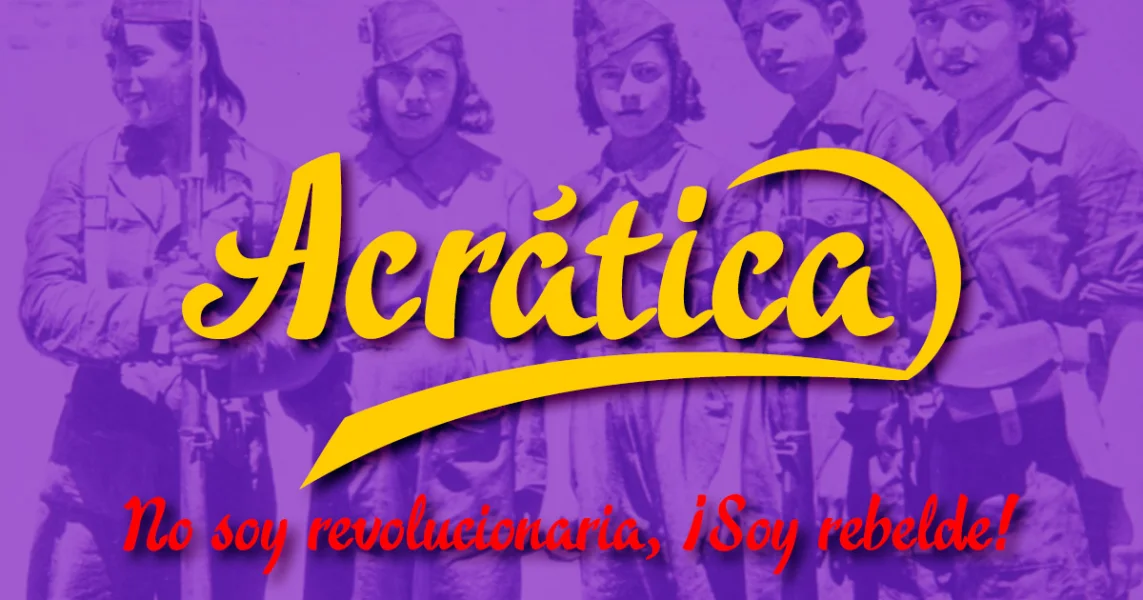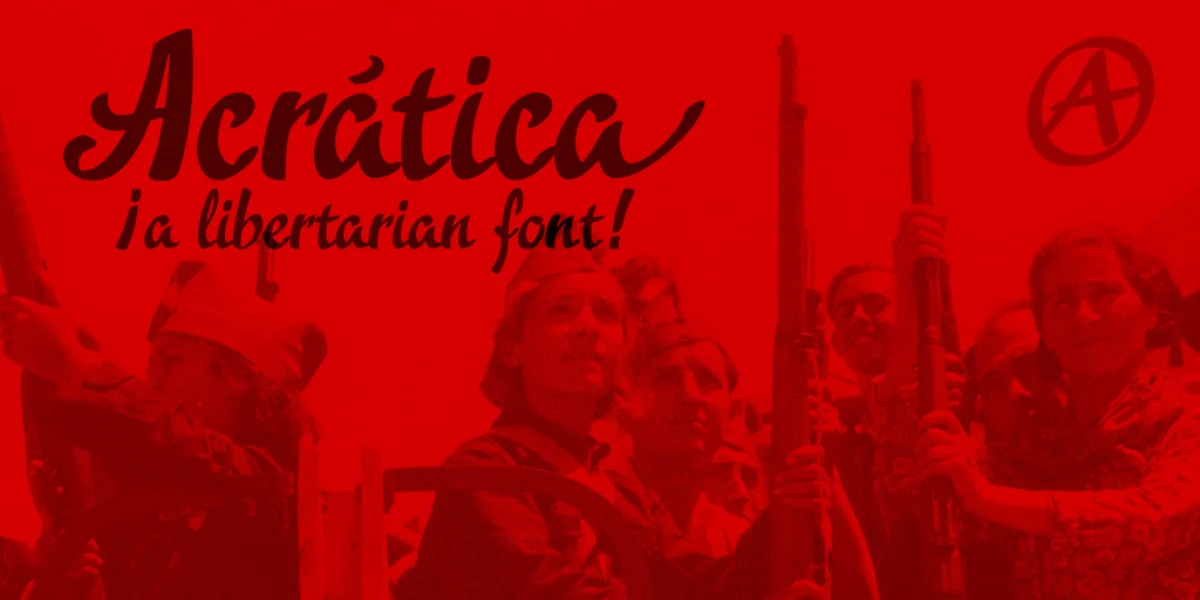
Acrática is a handwritten typography of calligraphic style and has several sets of ornaments and terminal swashes for decoration of phrases and titles, is dedicated to all libertarians of the world.
Includes the Bitcoin symbol: b #